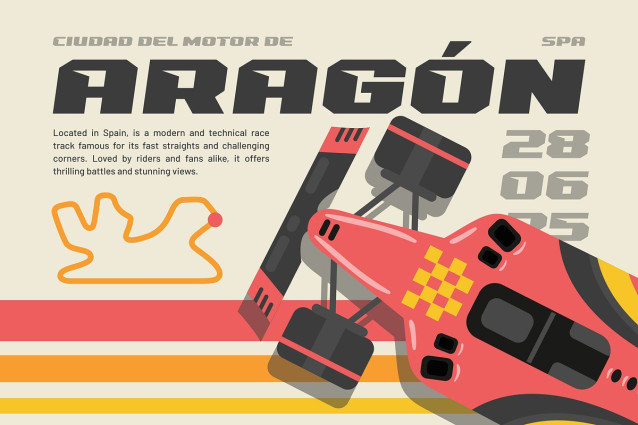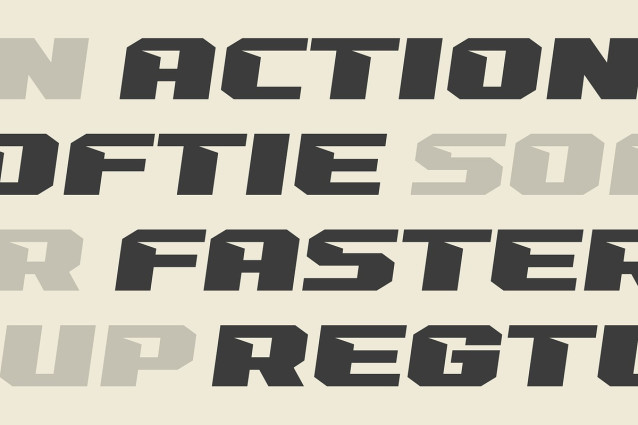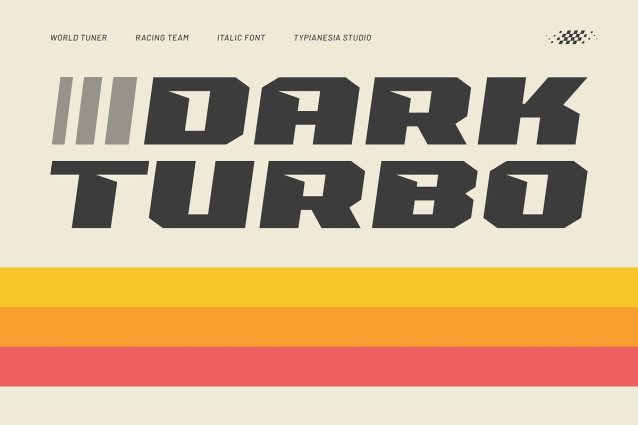
Dark Turbo Font
Dark Turbo Font is a strong, italic dynamic display font designed to convey speed, energy, and action. With bold characters and an aggressive slant, this font is well-suited for designs related to racing, automotive, sports, and gaming, such as headlines, racing team logos, sports event branding, merchandise, poster, packaging design, advertising campaign, game design, promotional materials and any project that aim for a competitive and adrenaline-fueled feel. This font visually supports messages and making it a good choice for projects needing maximum impact and a bold appearance.